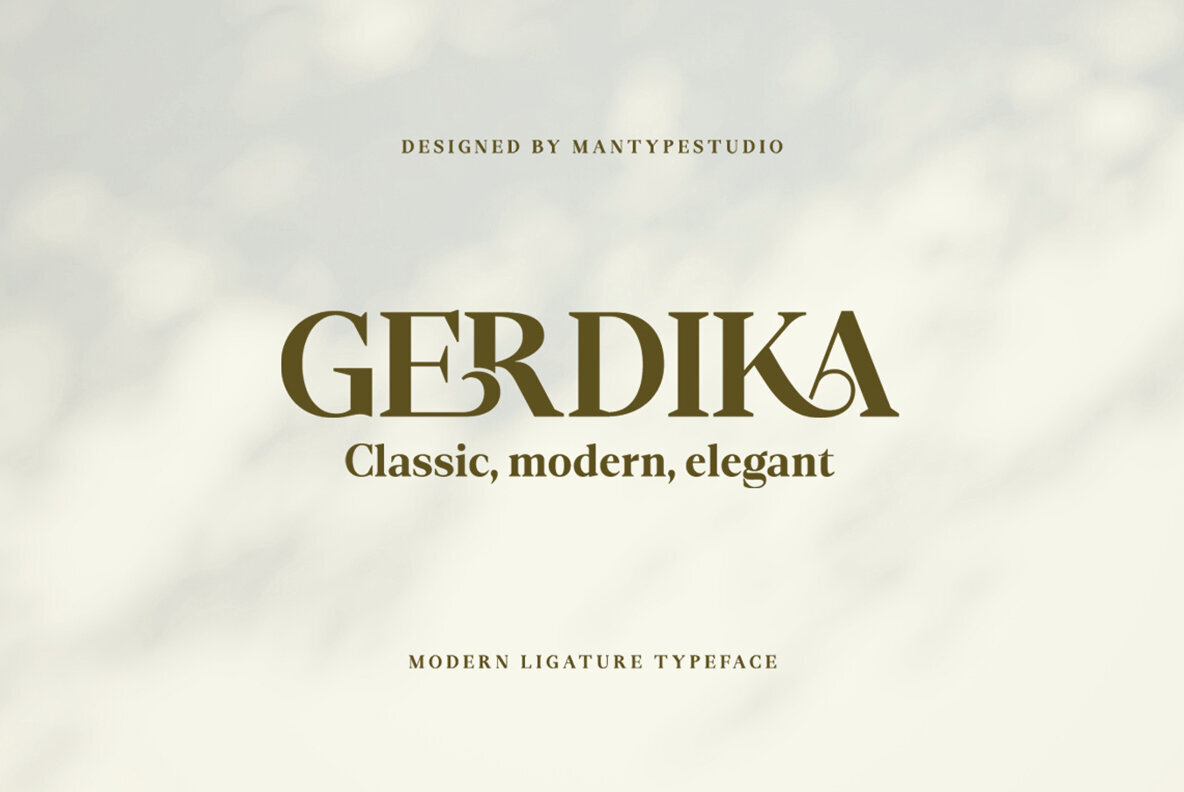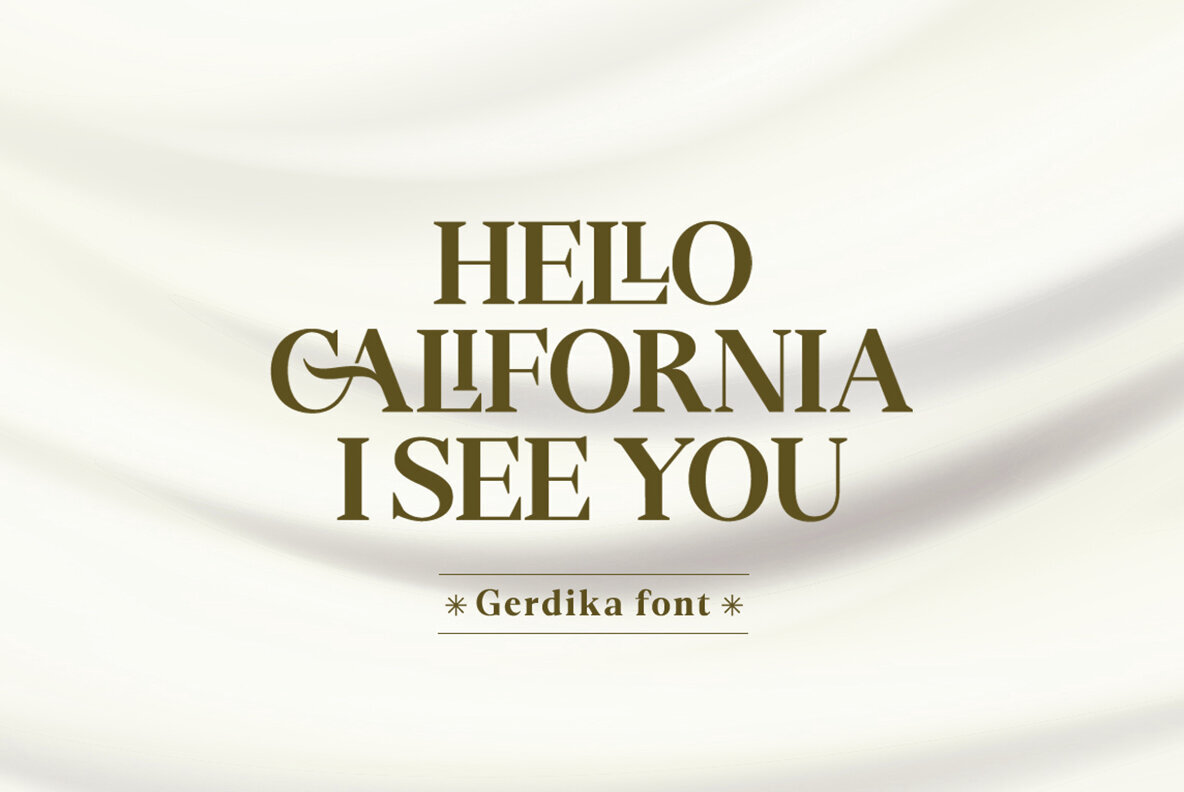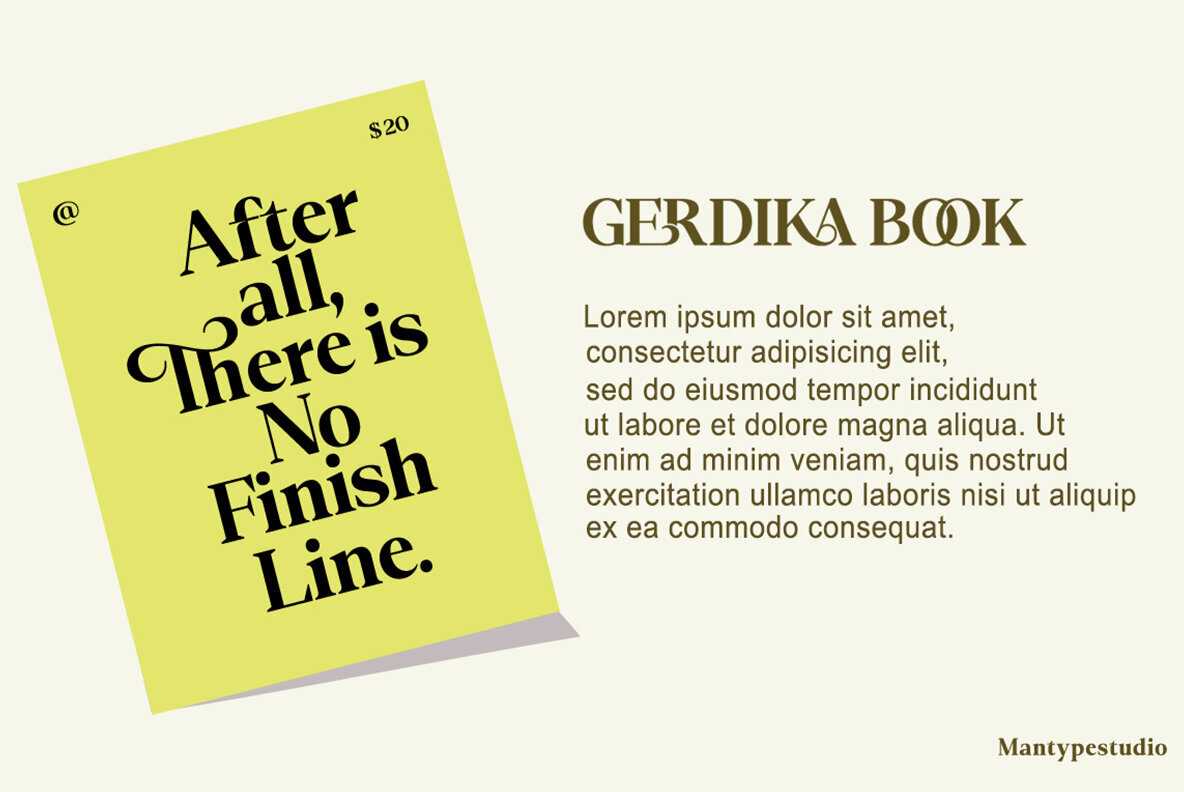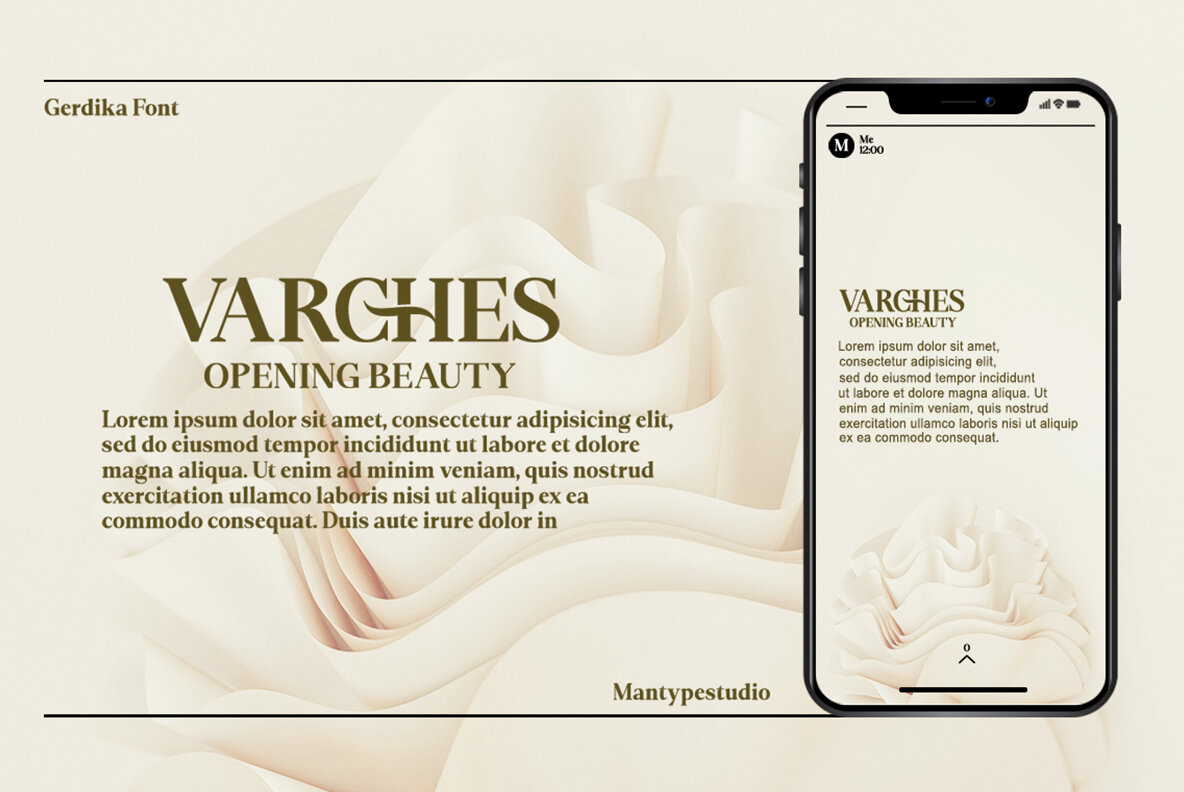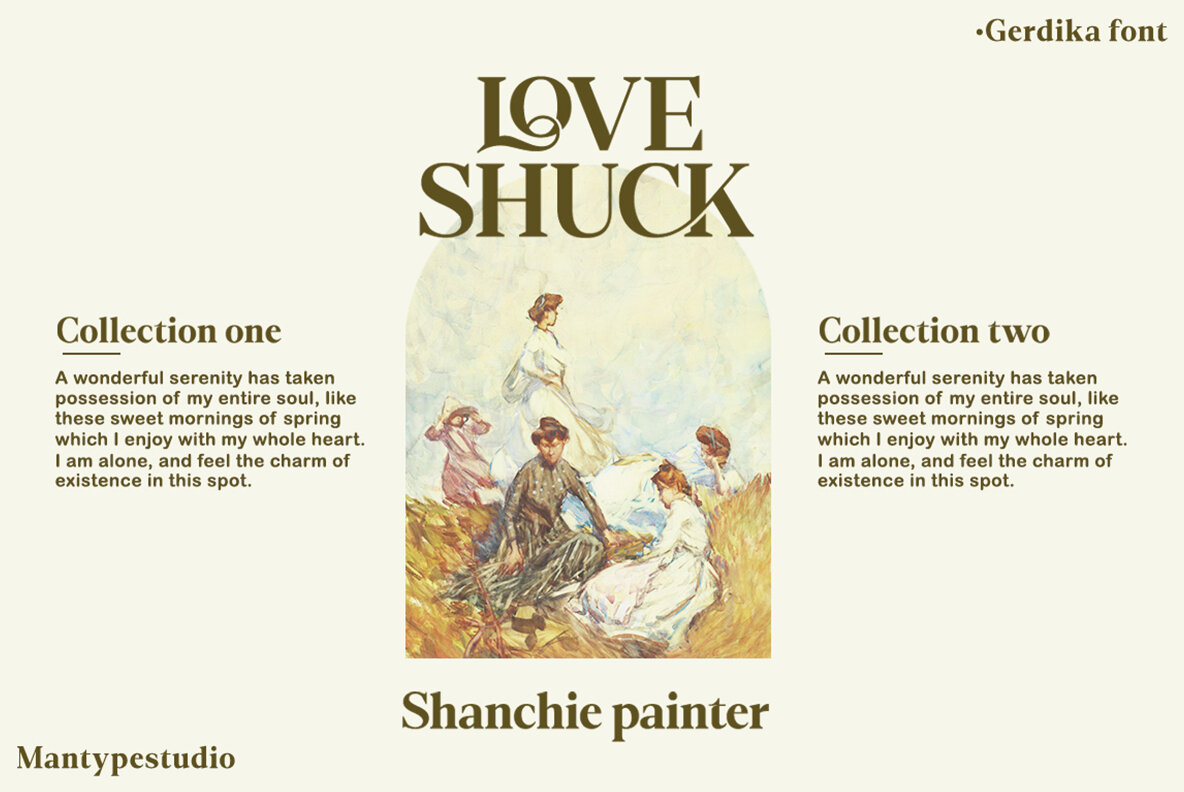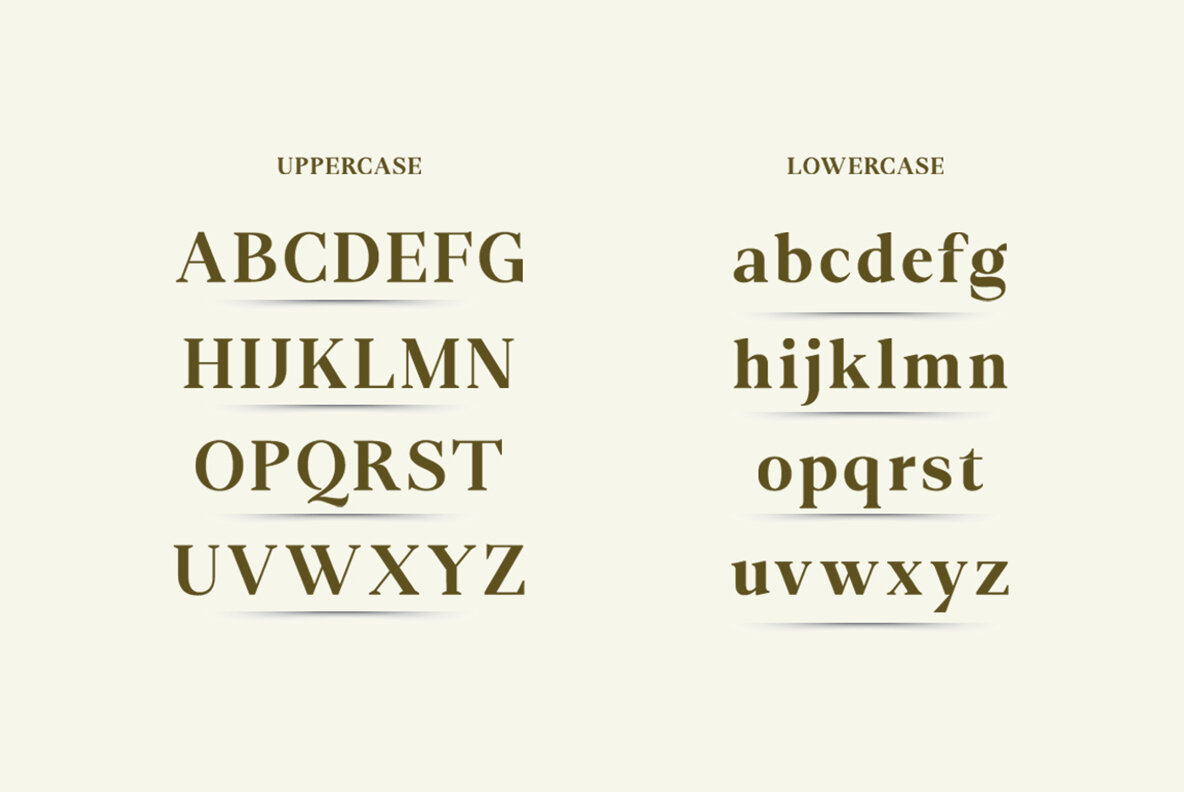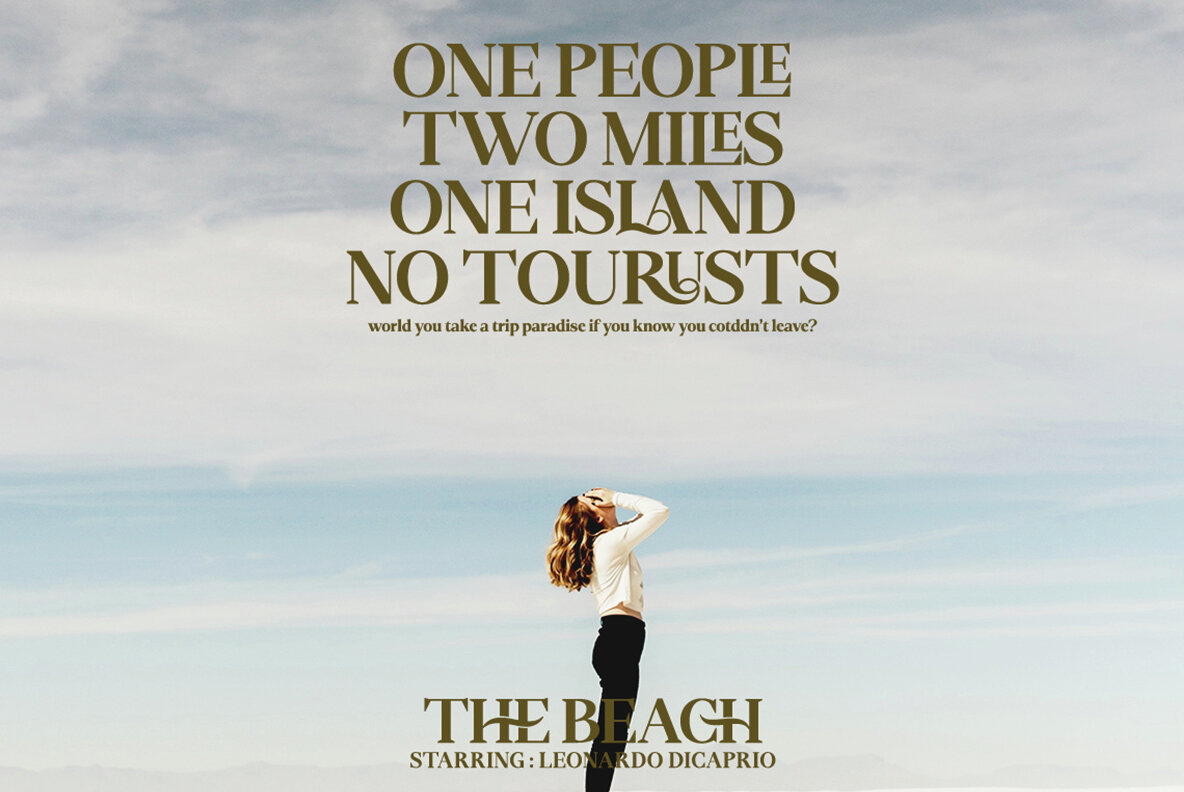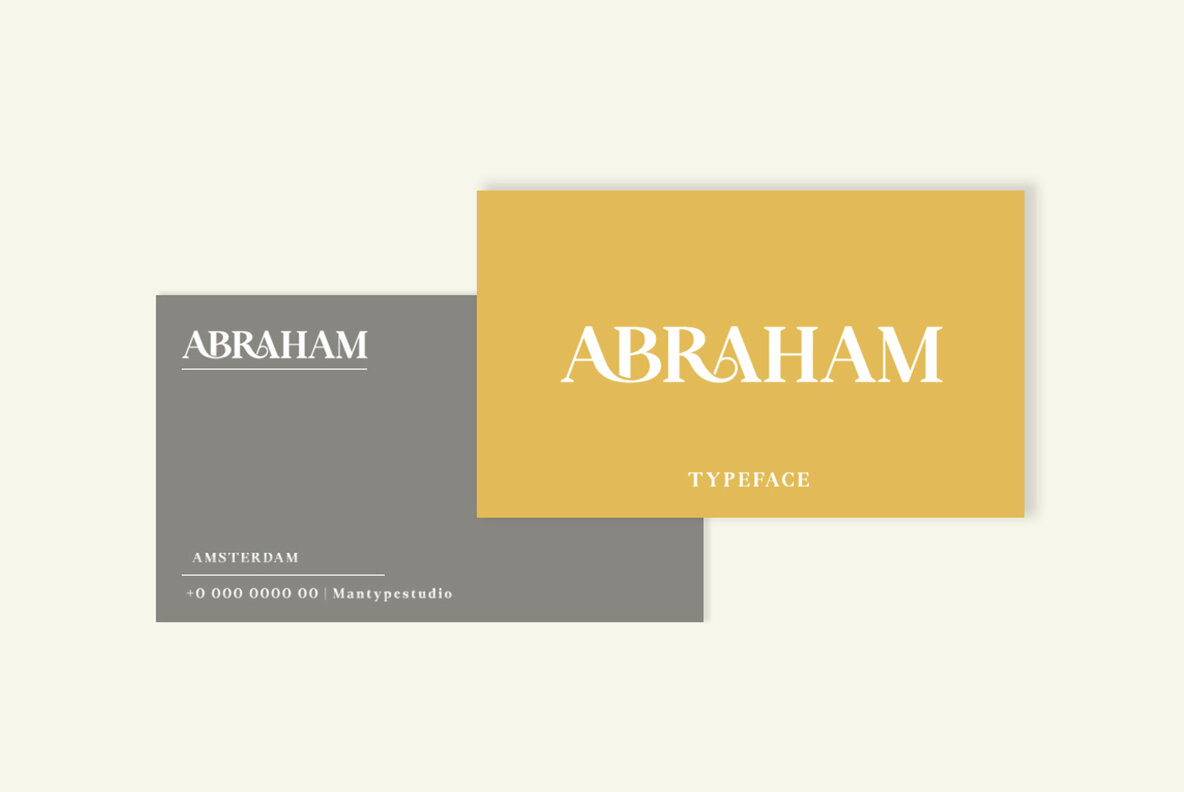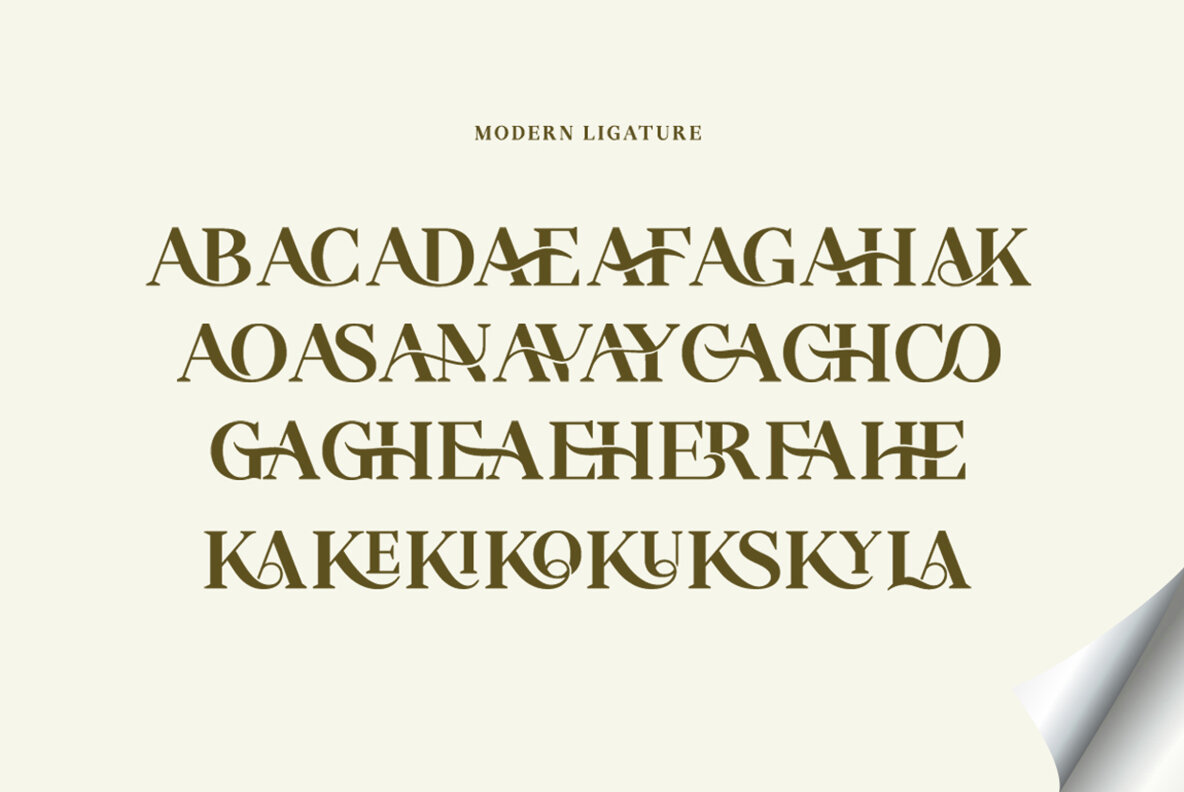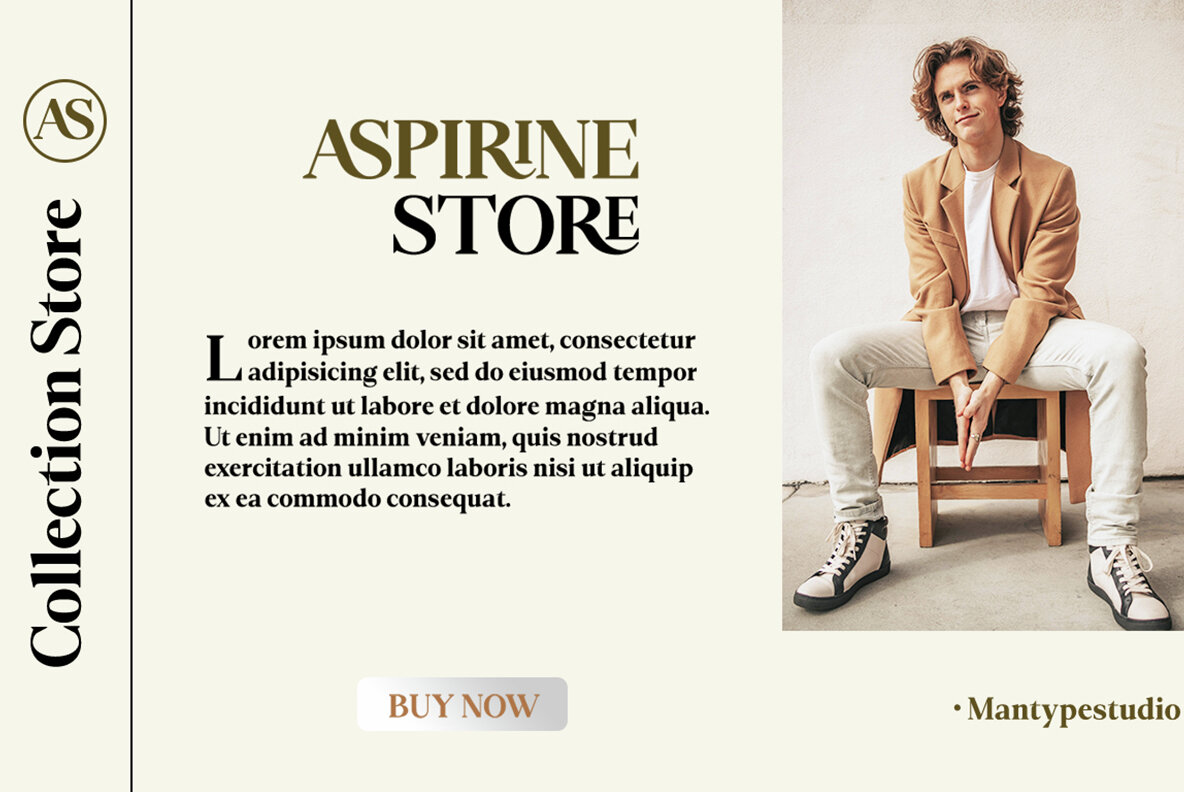
GERDIKA Font
Gerdika Regular
Gerdika brings clarity and reliability to editorial design, crafted to meet the demands of newspapers, magazines, and online publications. Its versatile nature ensures that in body text, Gerdika remains neutral and robust, offering excellent readability with clean texture and subtle warmth. This makes it suitable for extensive reading, maintaining visual integrity even in dense editorial layouts. At larger sizes, Gerdika reveals distinctive details that add character to subheadings and headlines. These carefully-designed features make the typeface memorable, helping editors create a cohesive and recognizable voice across print and digital platforms. Gerdika stands out for its balance of function and personality, serving as a dependable choice for intensive editorial work.Gerdika Editorial Typeface